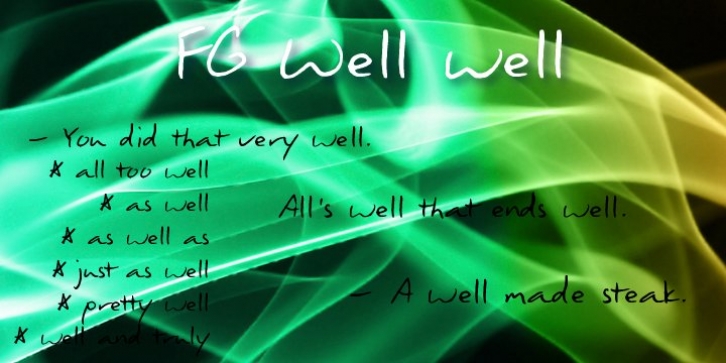
FG Well Well was designed by Ellinor Rapp and published by YOFF. FG Well Well contains 1 style.
Here you have the FG Well well font who's a scribbling man in the 40+ years who's in a terrible rush.